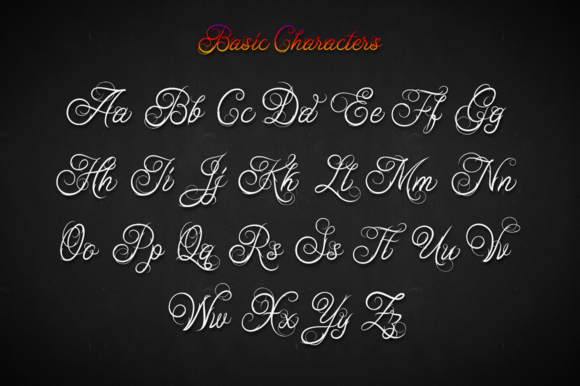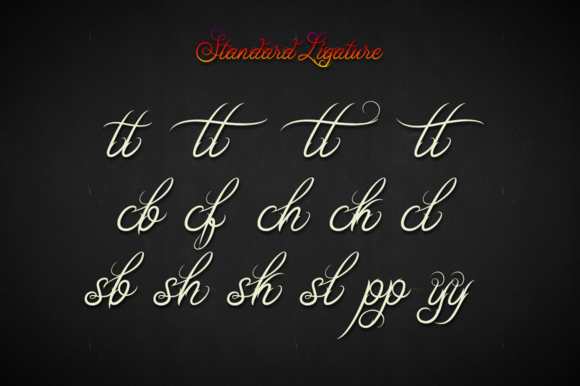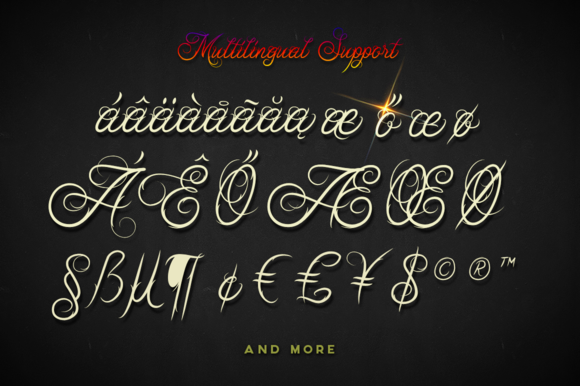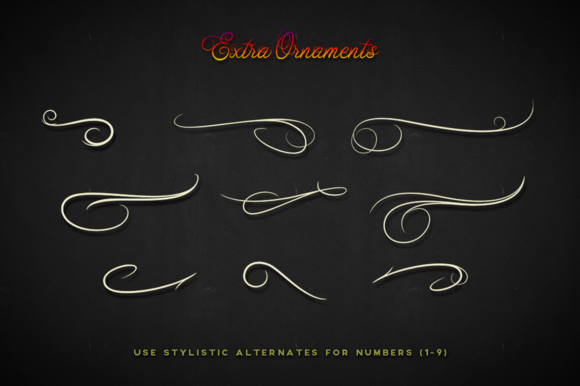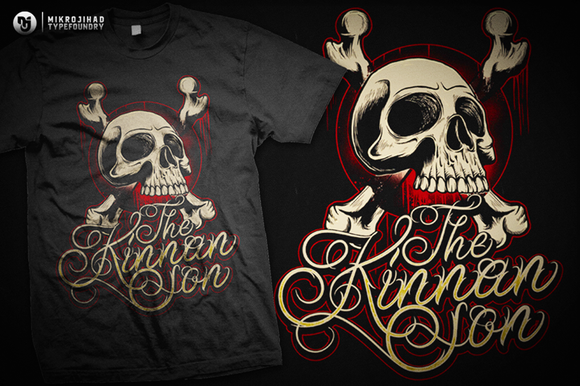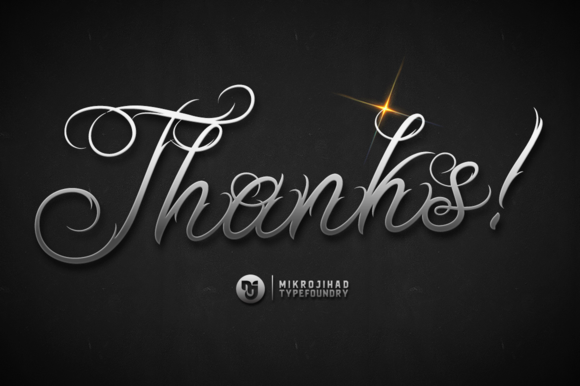
Ababil Script Font
About Ababil Script Font
Ababil script is a beautiful typeface inspired by tattoos. It can be used for various purposes such as headings, logos, invitations, t-shirt designs, greeting cards, posters, labels, book covers, brochures, and much more!